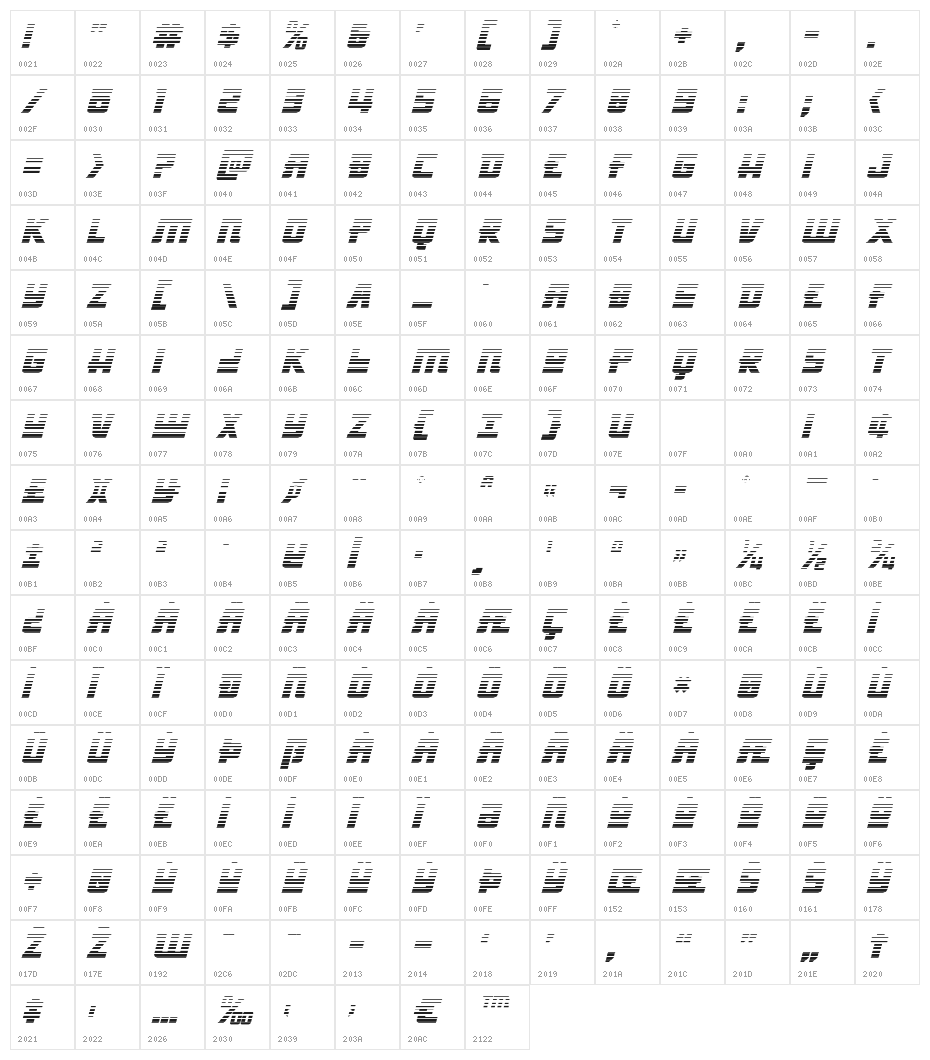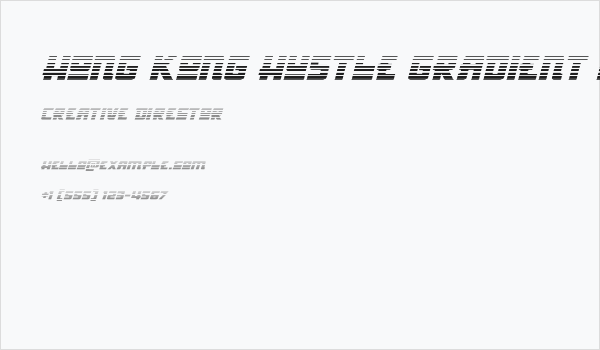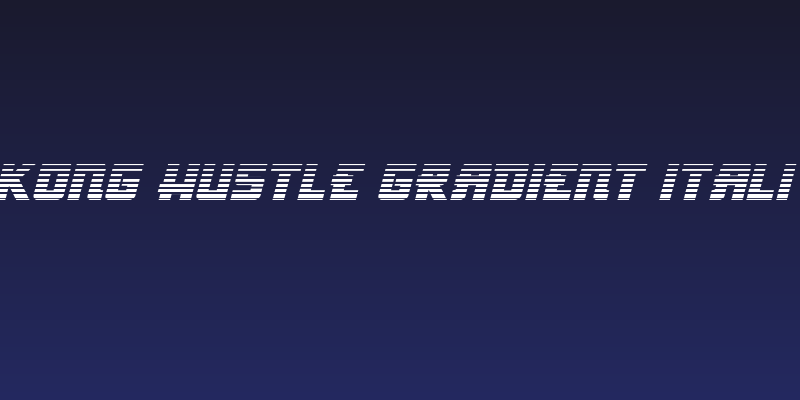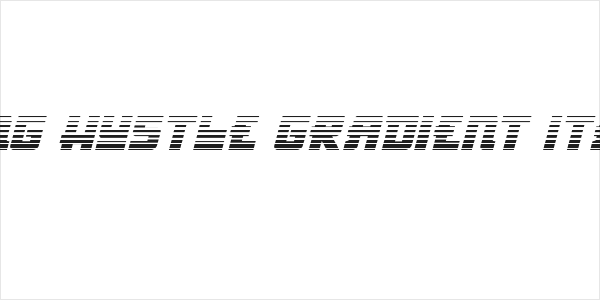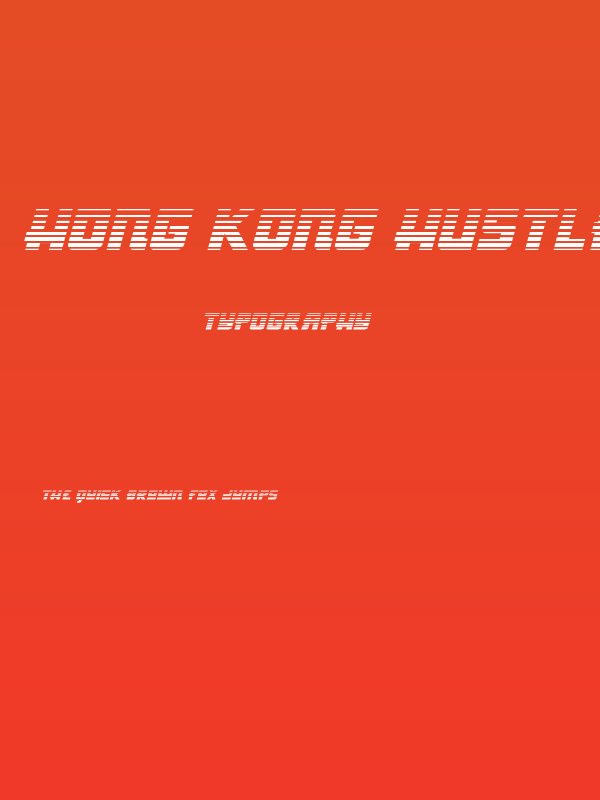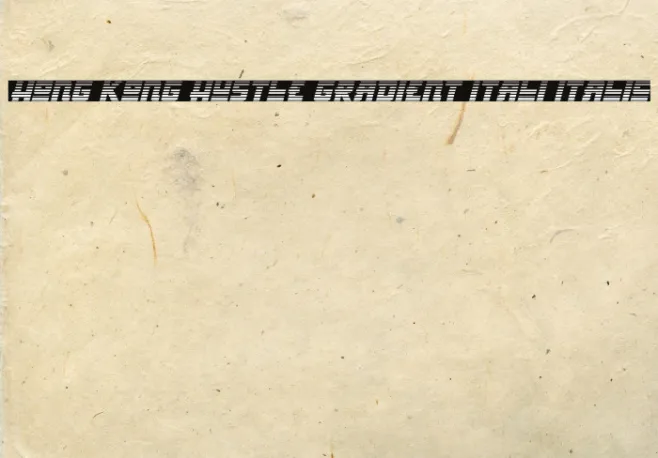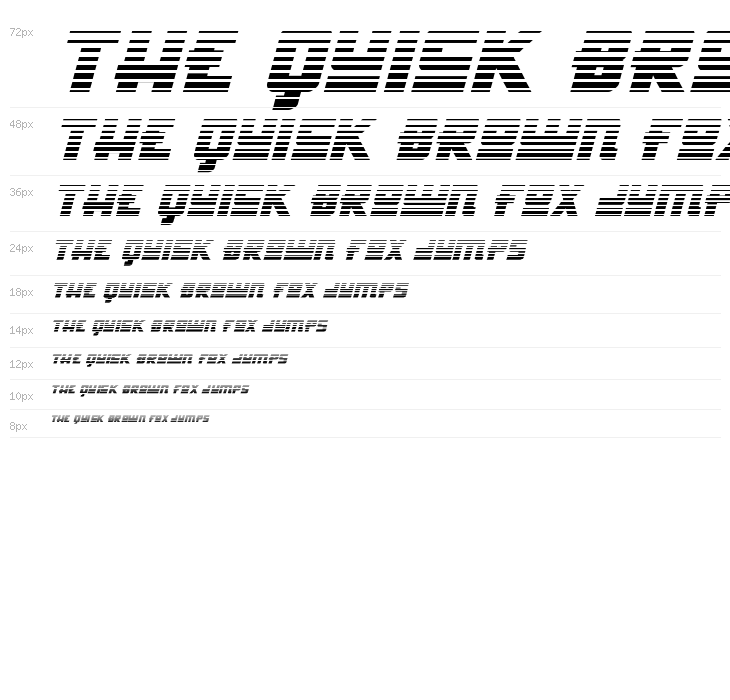
Hong Kong Hustle Gradient Itali Italic Font
Hong Kong Hustle Gradient Itali Italic Description
This font features a bold, futuristic design with a distinct gradient effect created by horizontal lines that give it a dynamic, fast-paced appearance. The italicized style adds a sense of motion and energy, making it ideal for projects that require a modern and edgy look. The characters are uniformly spaced, with a condensed width that enhances its sleek and streamlined aesthetic. The high contrast between the thick and thin lines within each character adds to its striking visual impact, making it suitable for attention-grabbing headlines or logos.
| Proposed Projects | Ideal for futuristic branding, tech-related projects, sports team logos, or dynamic event posters. |